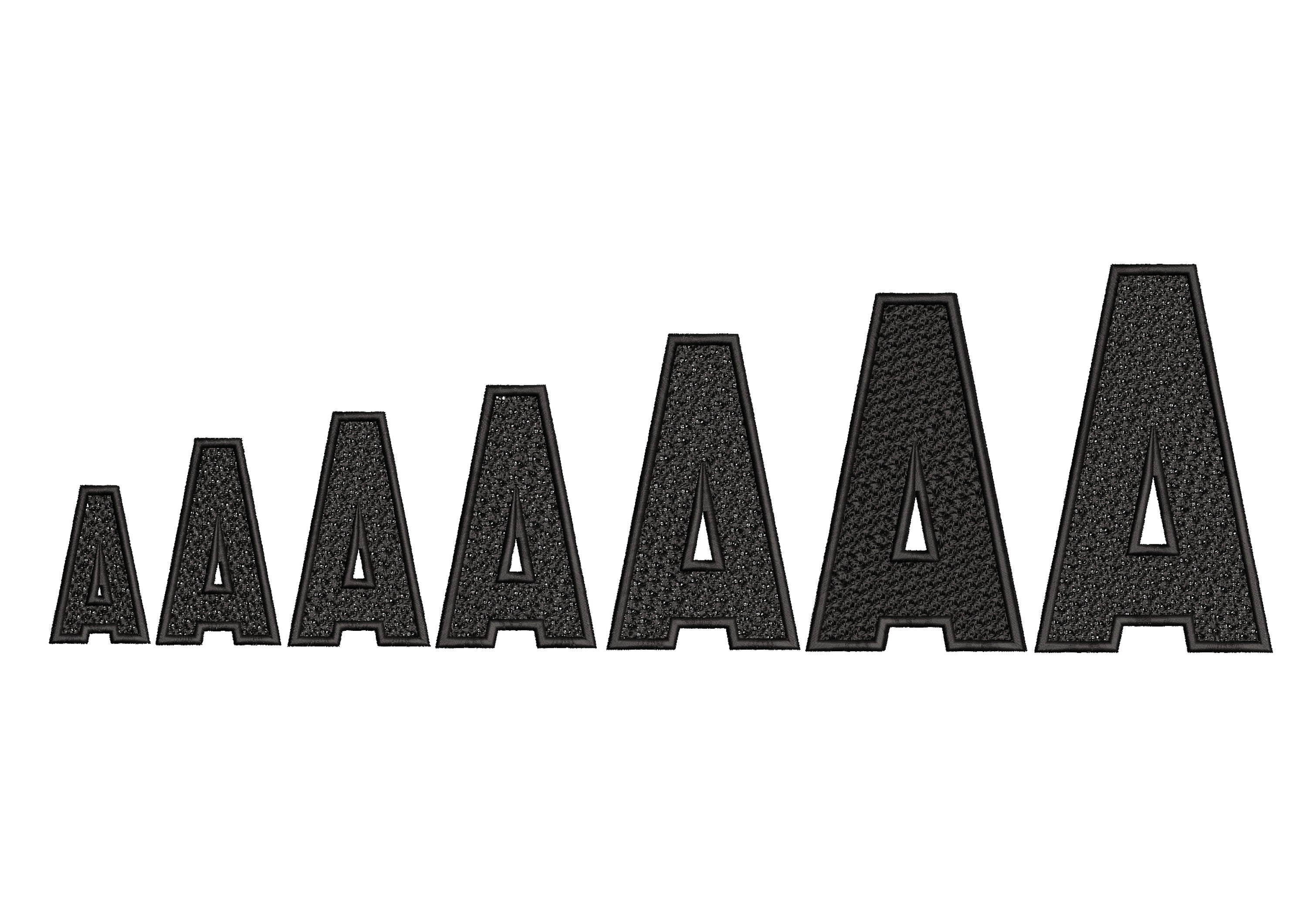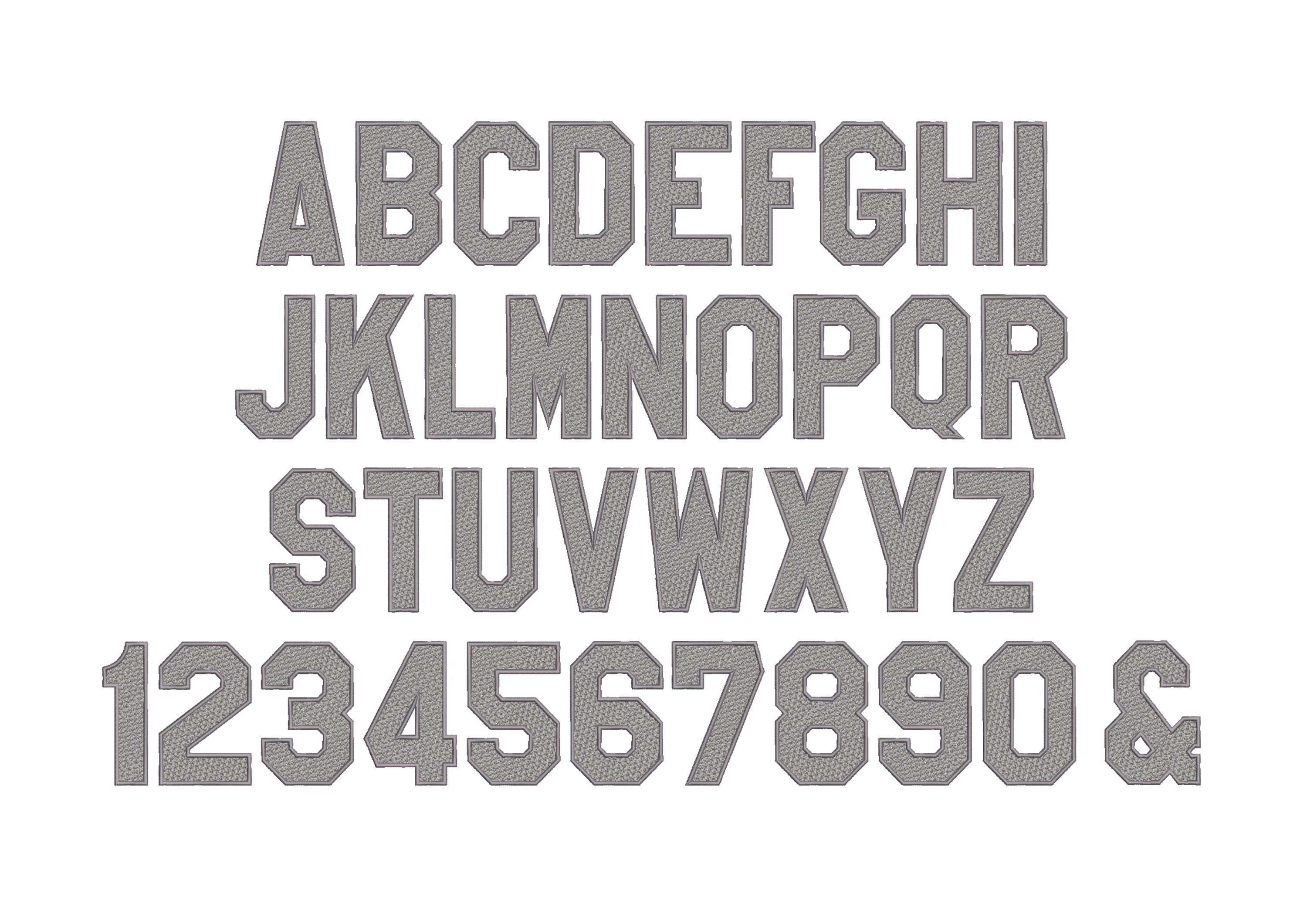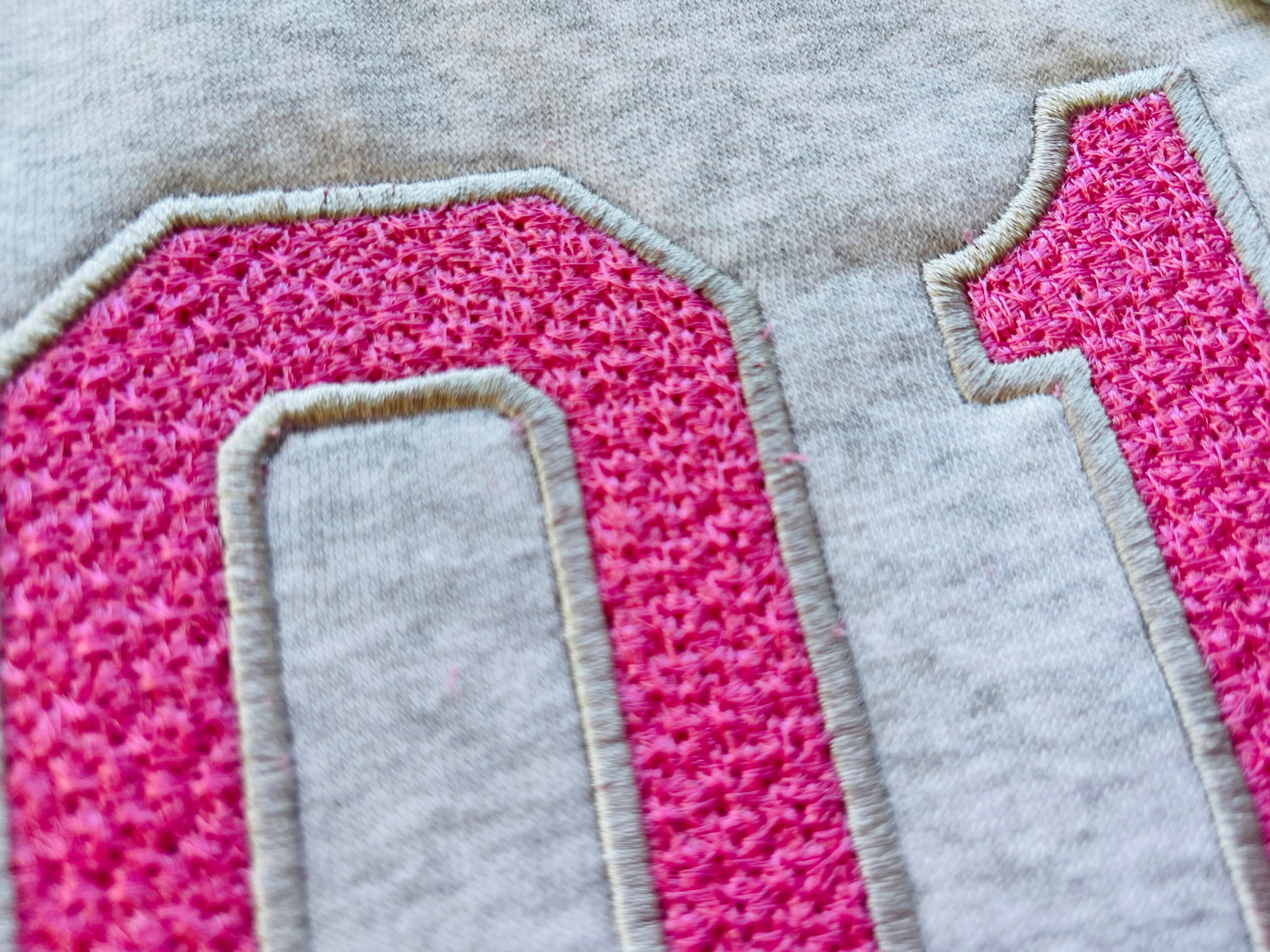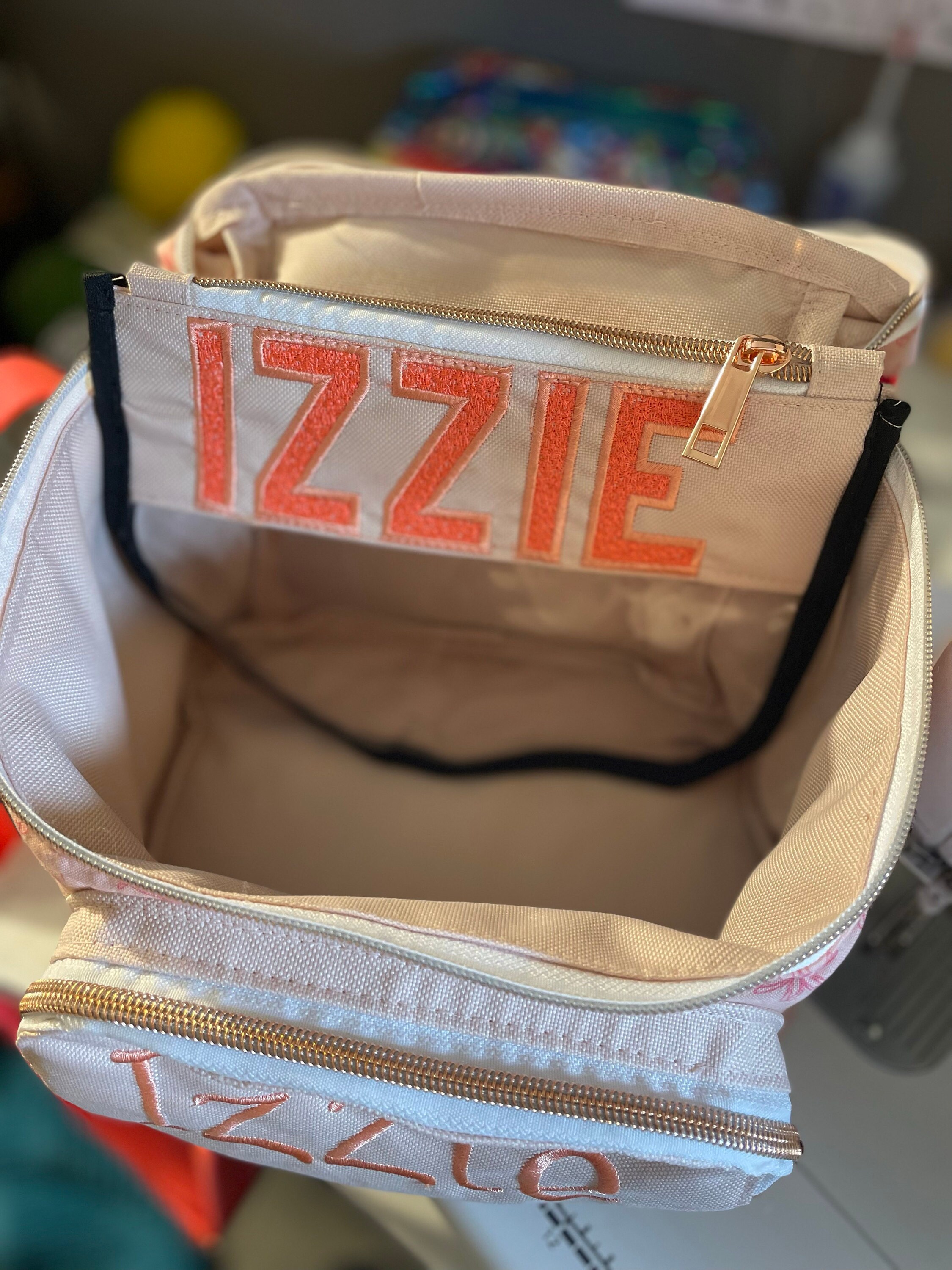
Faux chenille sport block Font Athletic Sport School Team Players alphabet letters Applique machine embroidery designs sizes 2.2 thru 5.5 in
Faux Chenille Sport alphabet has upper case letters in assorted heights. It looks like chenille. Easy to use, just load and stitch. Please, see the enclosed photos. It is recommended to lay the same color piece of fabric behind to prevent the base fabric looking through.